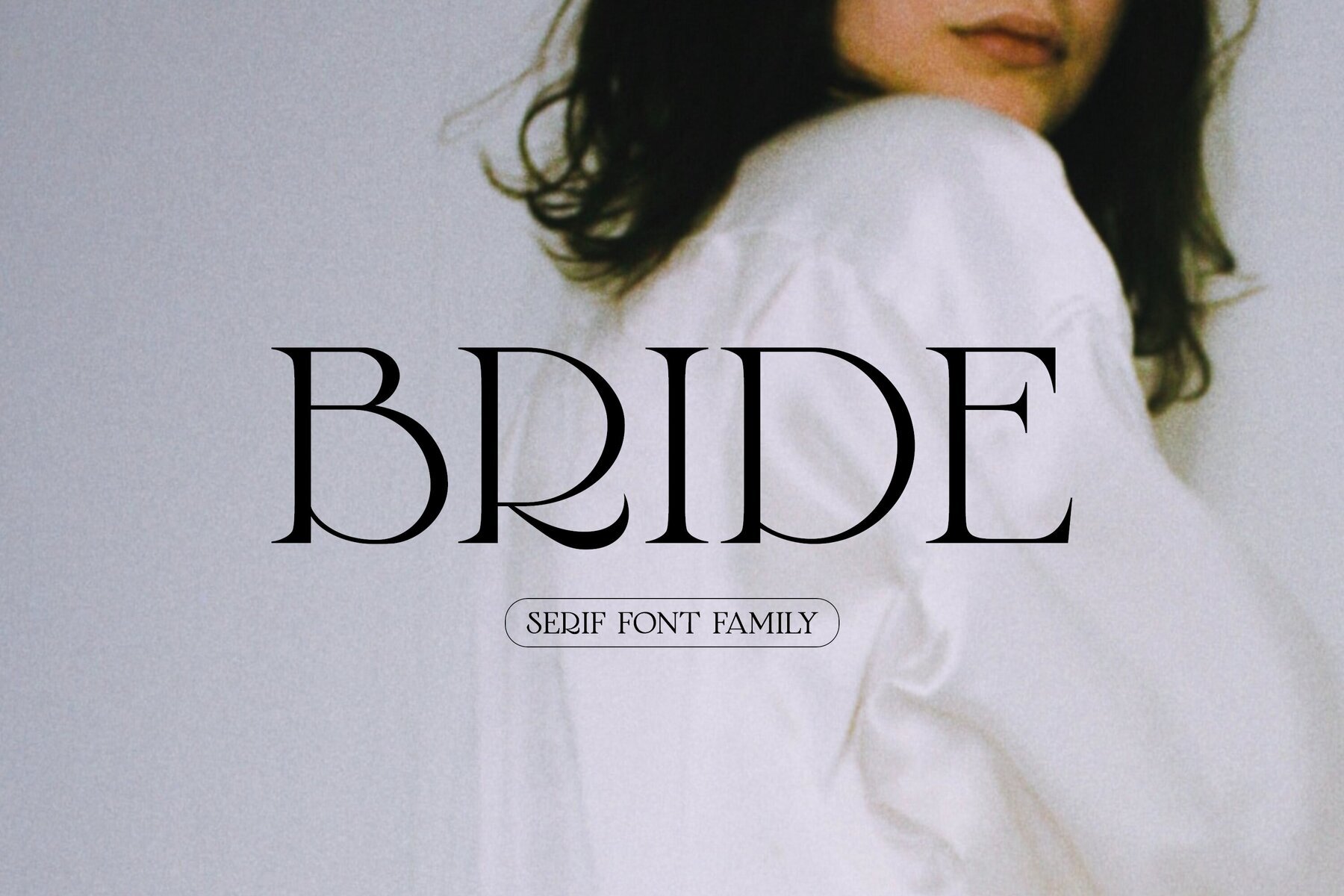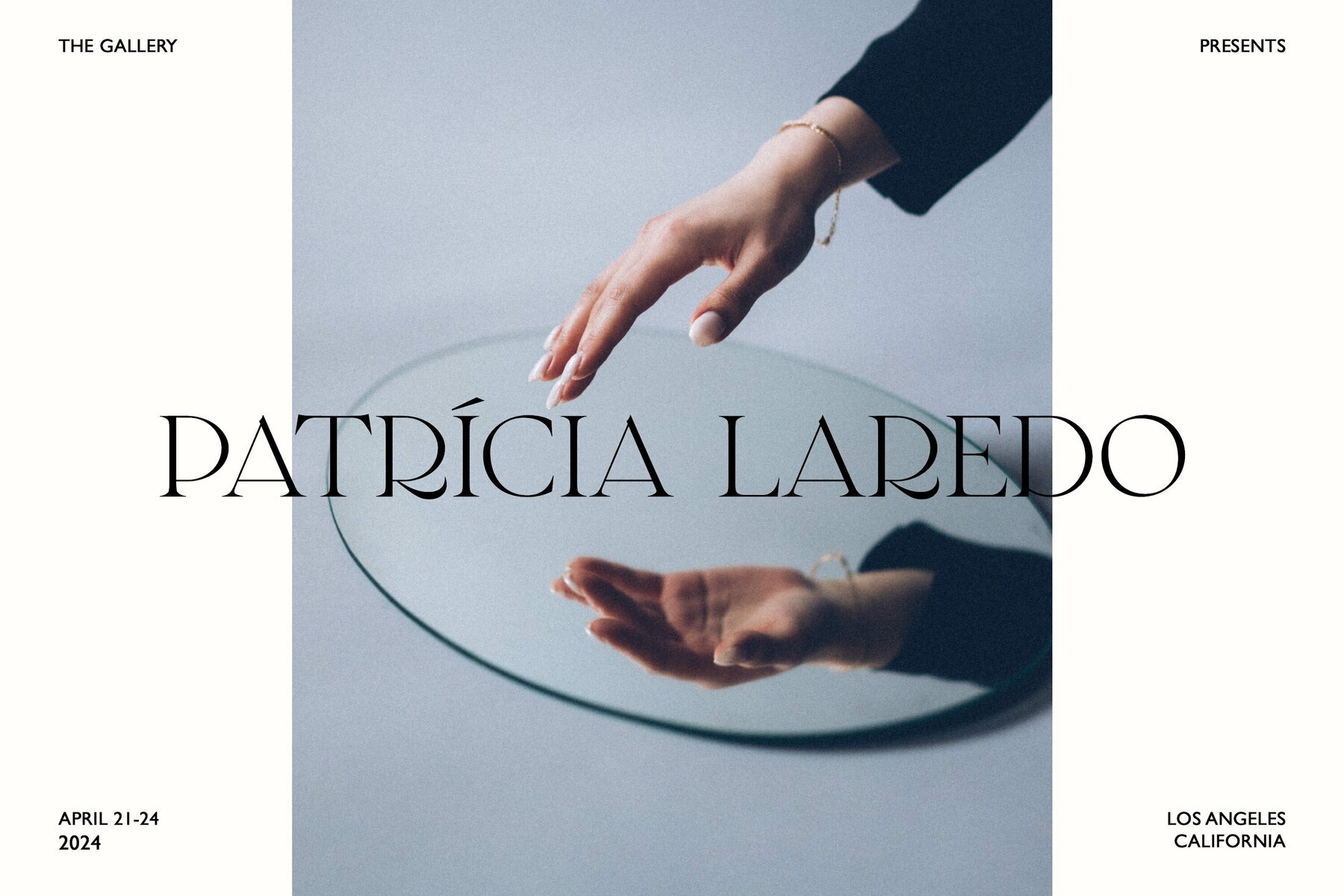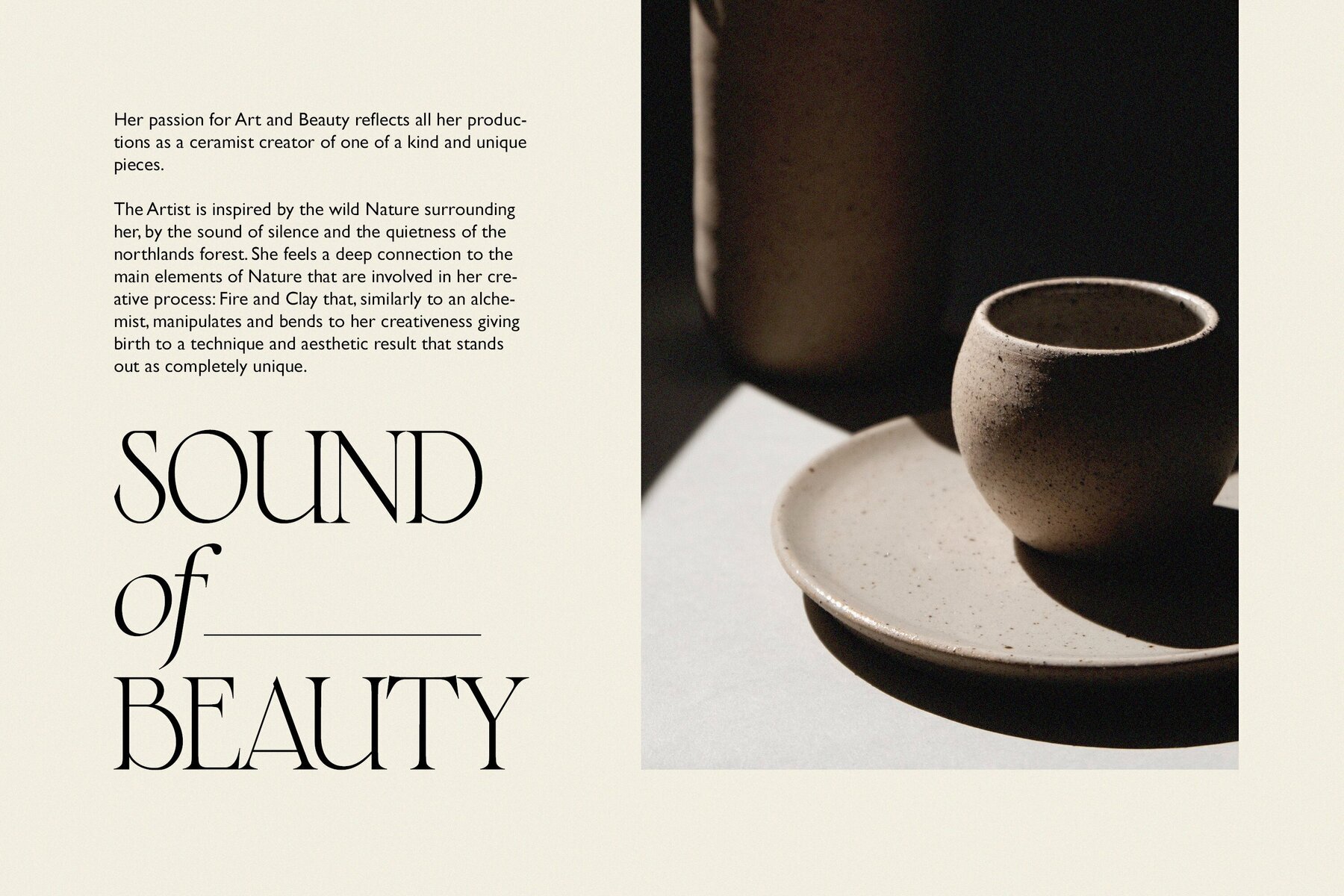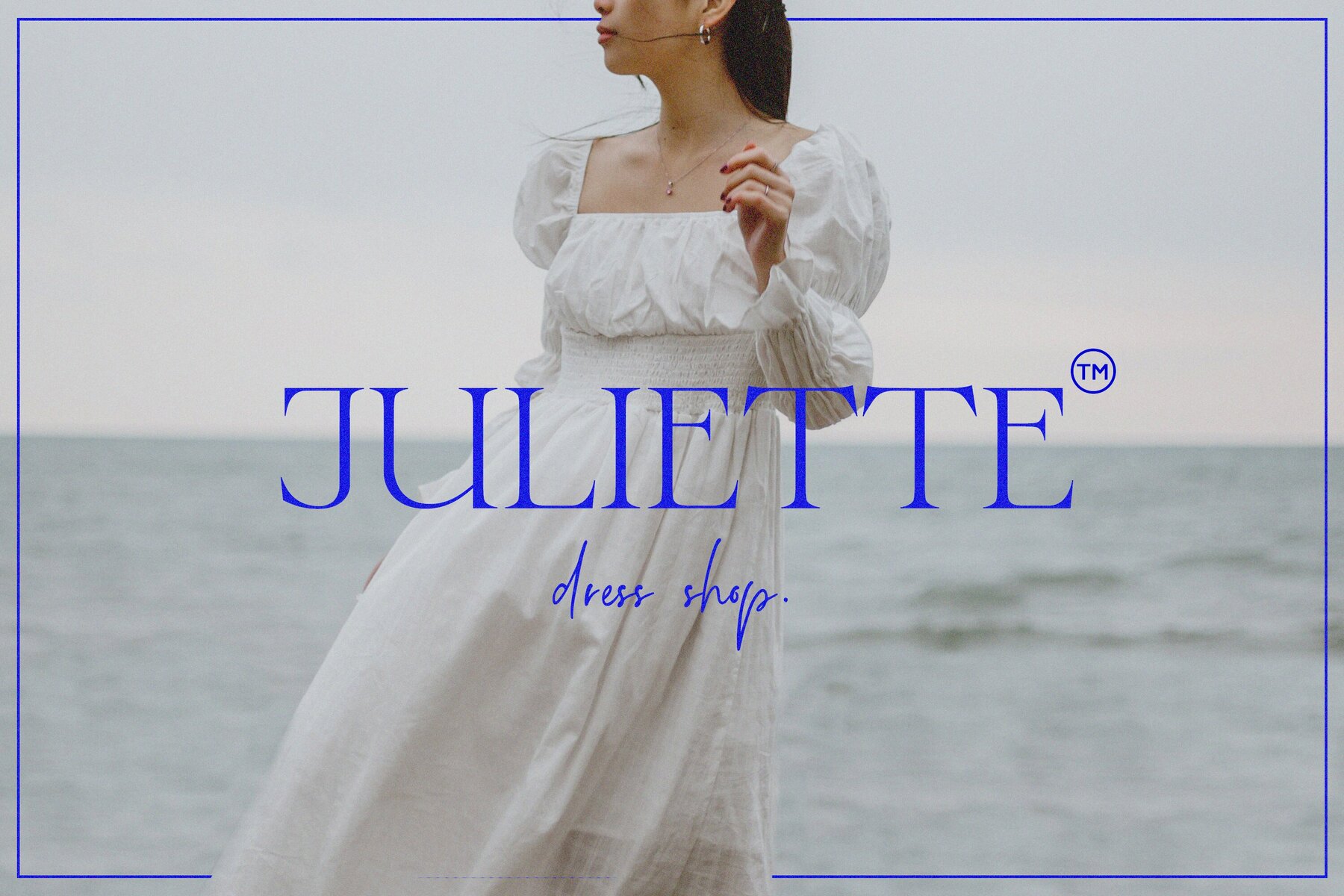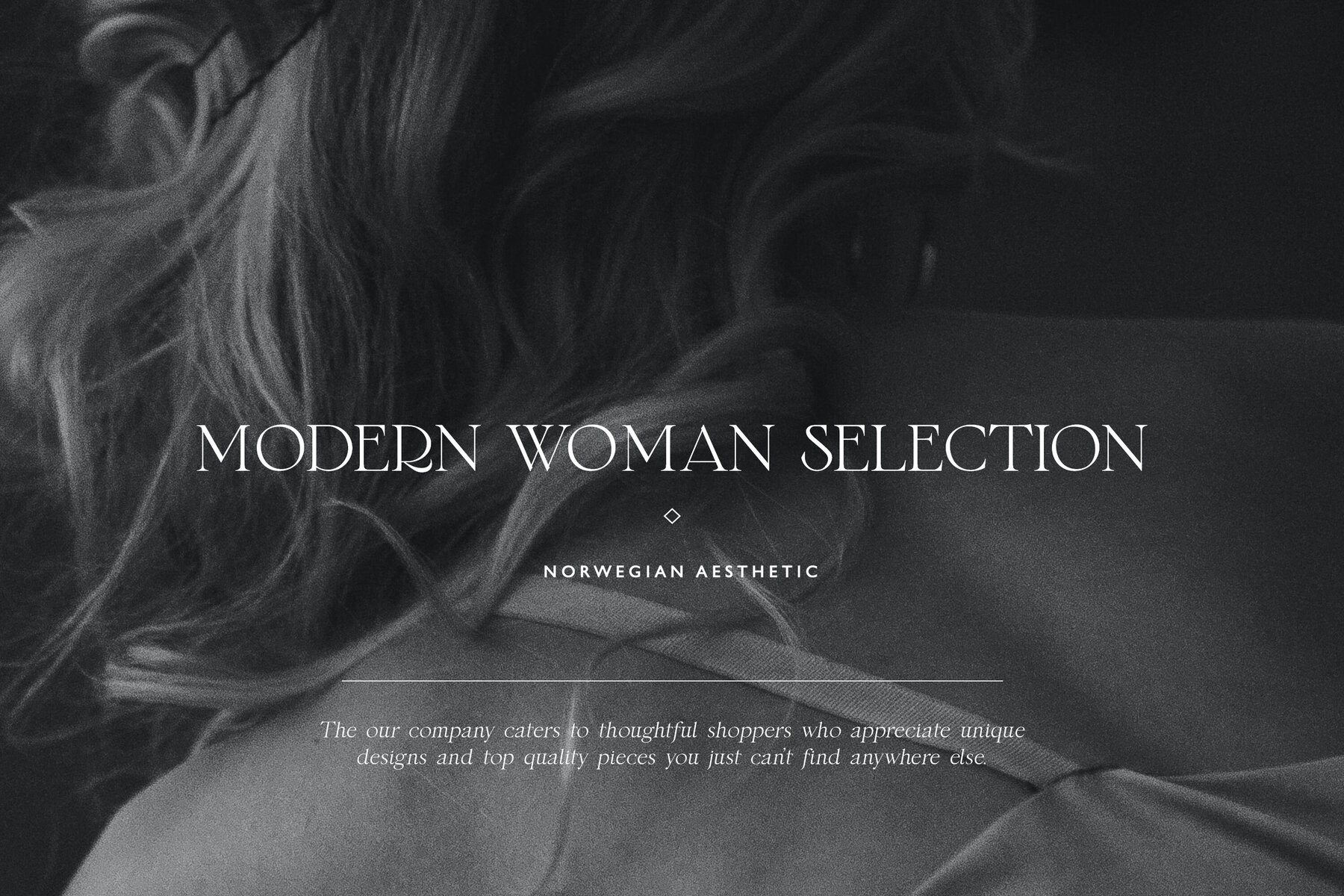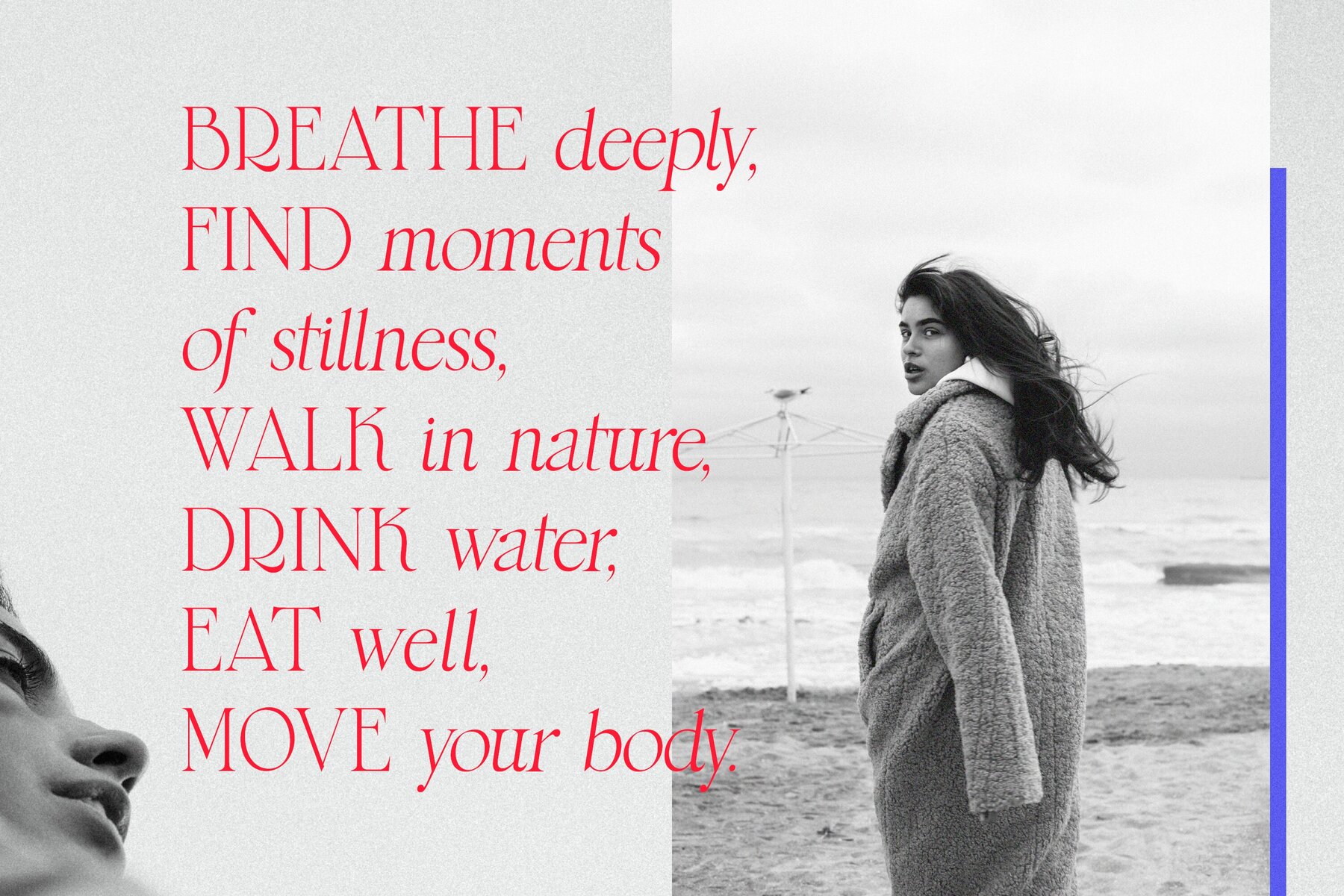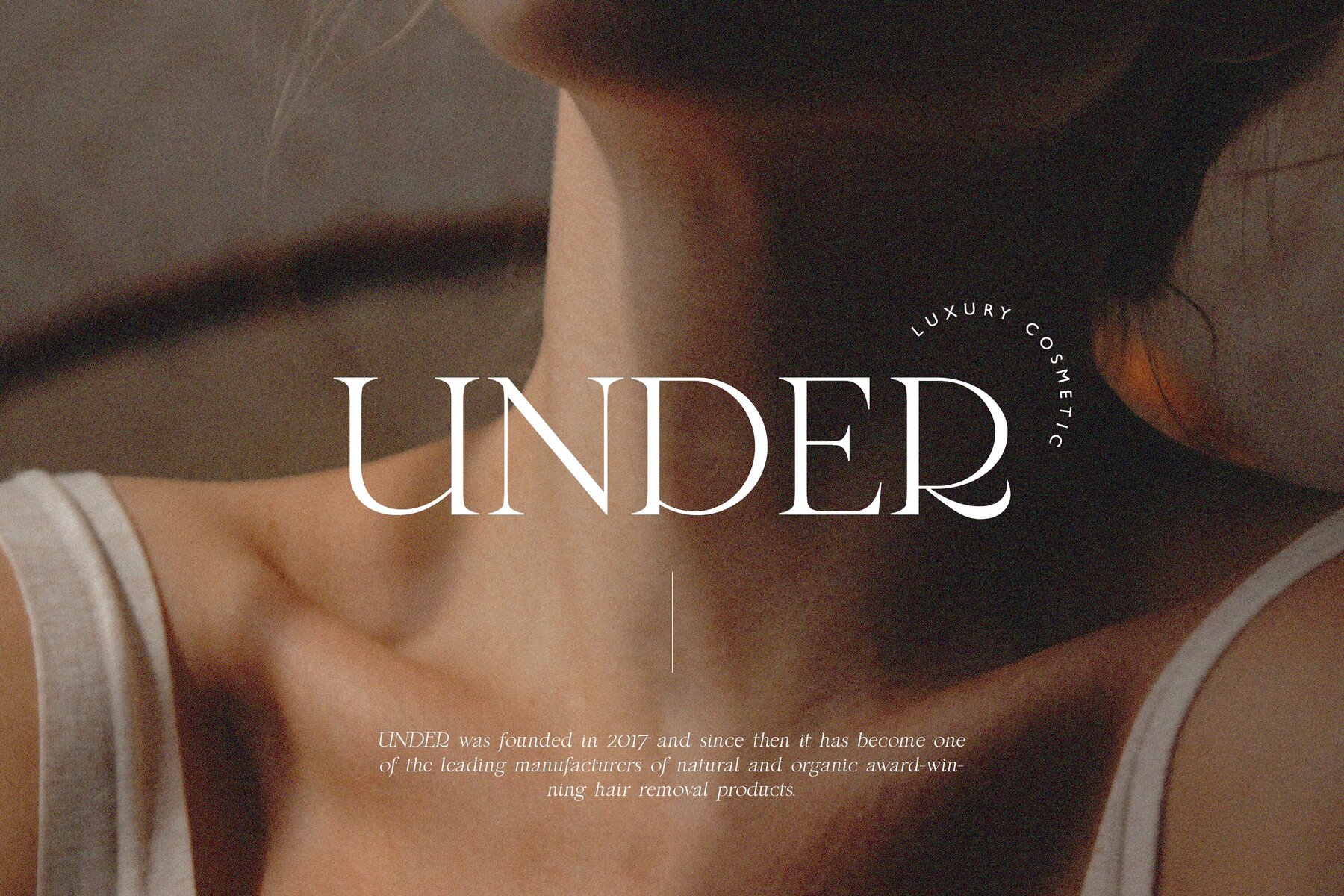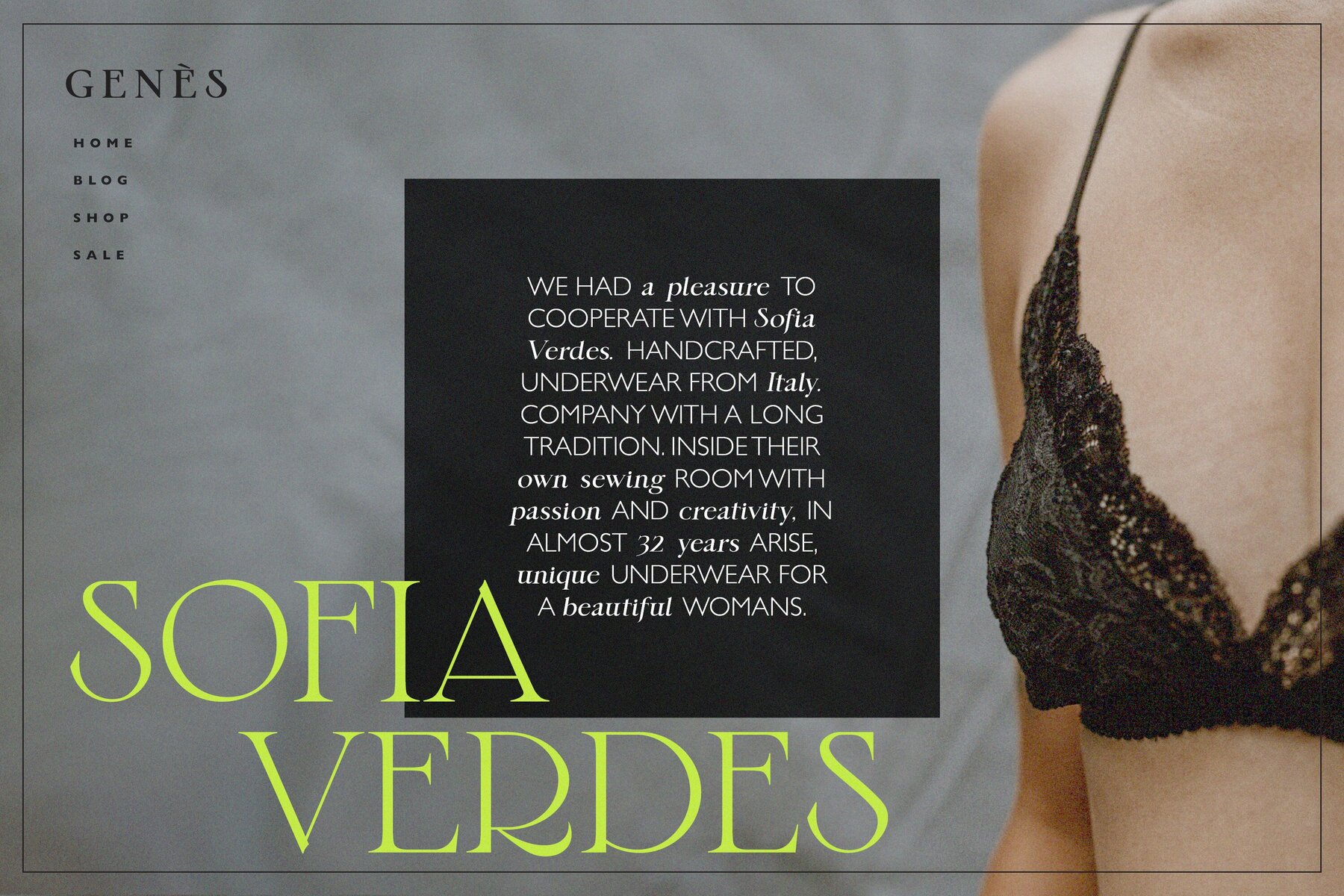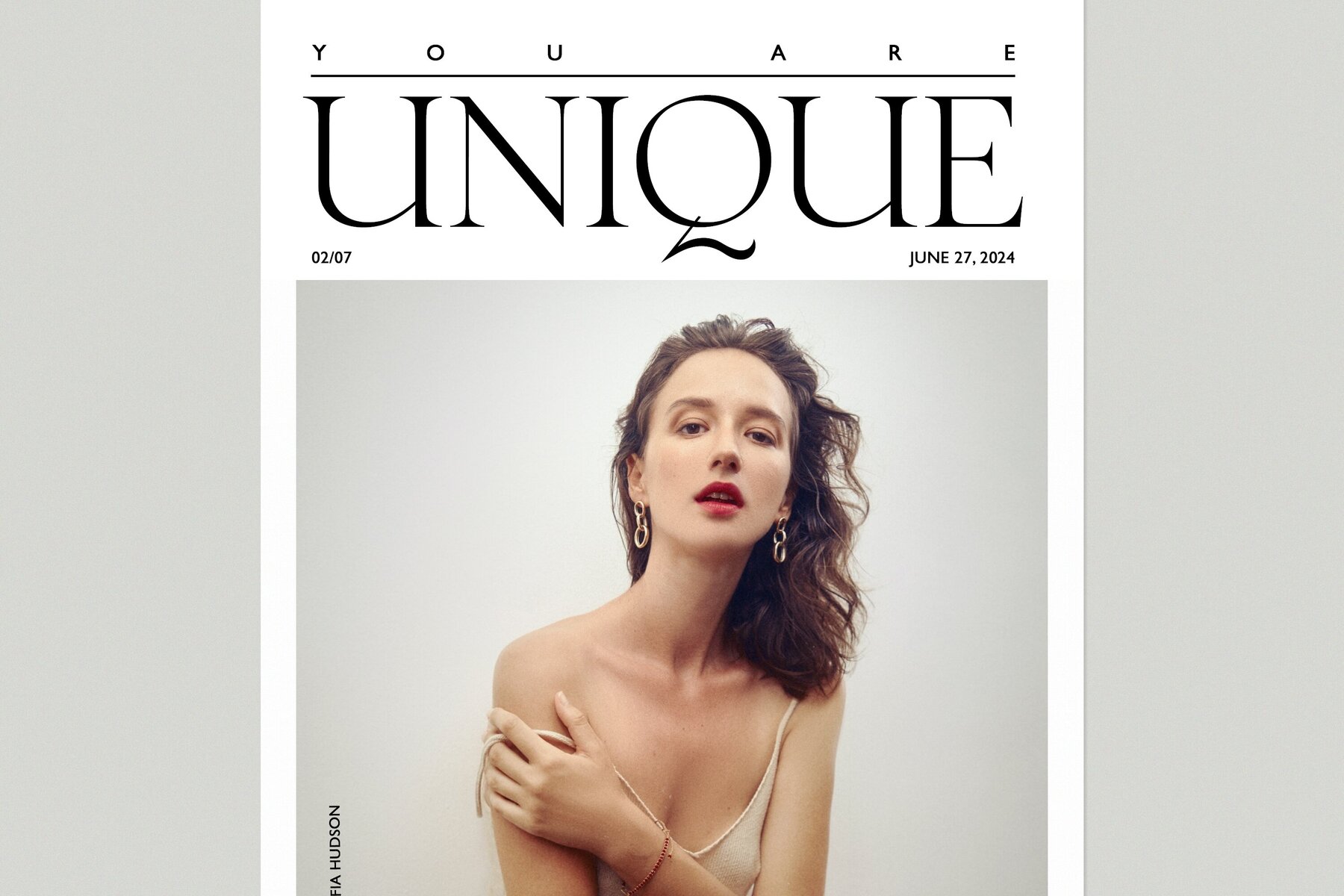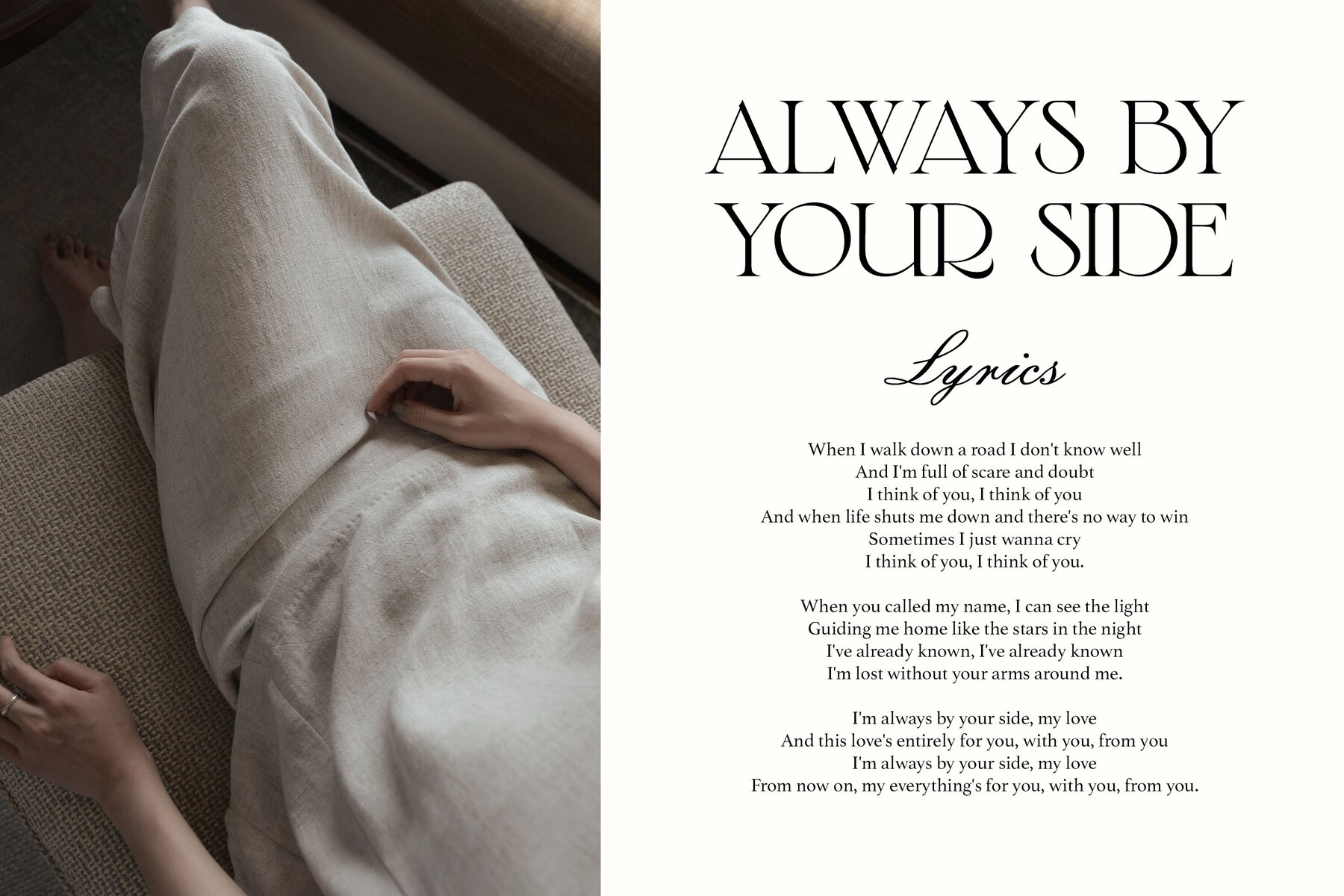
Bride Font
Explore the enchanting typography of the Bride serif font family by elvinova, designed with a poetic and elegant flair. Ideal for branding, weddings, logos, invitations, and more. Offering support for a range of languages including English, German, French, Spanish, Italian, Danish, Finnish, Portuguese, Swedish, Norwegian, Dutch, Indonesian, Luxembourgish, Icelandic, Cornish, Hungarian, Filipino, and Turkish.Bride: An Elegant Serif Font Family
Extensive Language Support